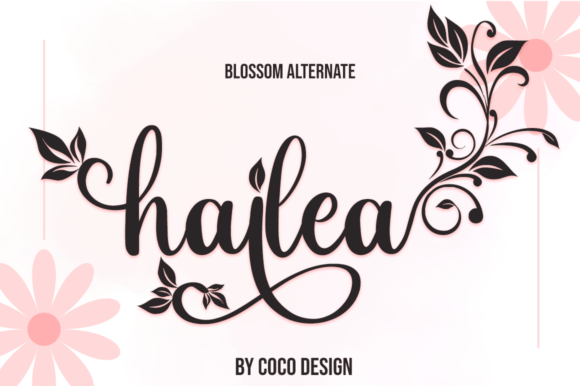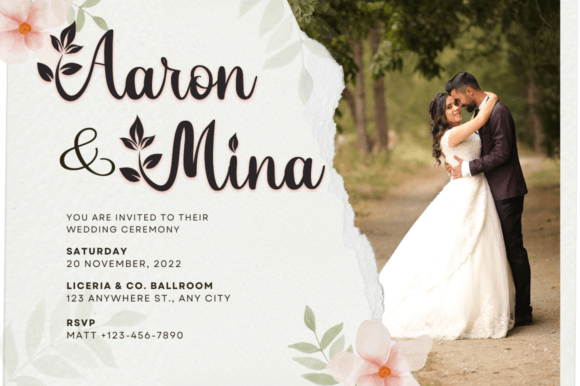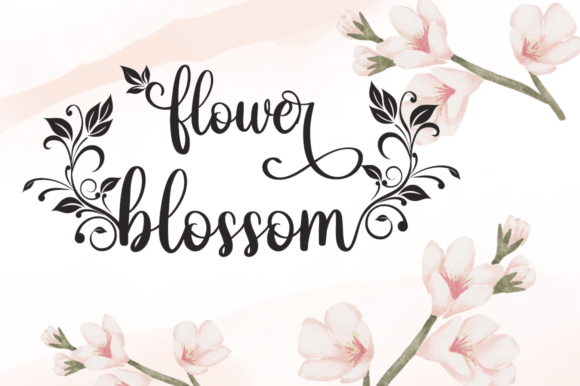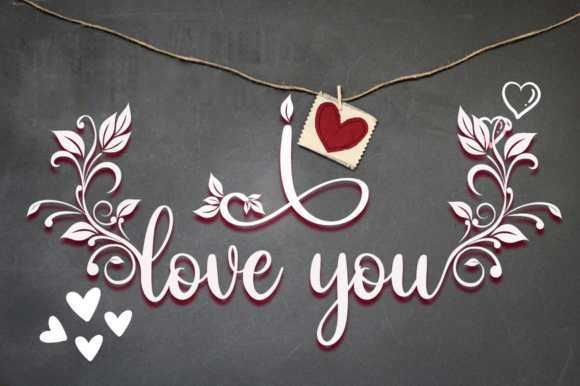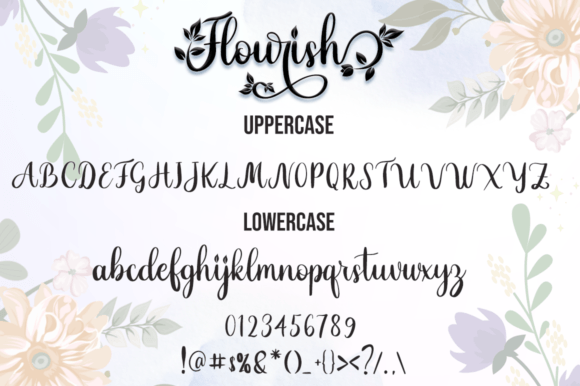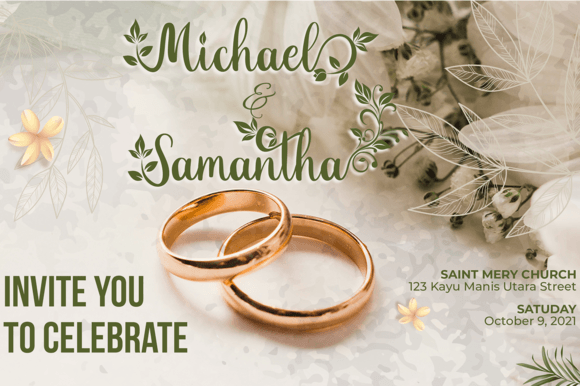
Introducing Flourish Font: Elevate Your Creativity with Elegance
Are you a designer, crafter, or DIY enthusiast looking for a font that can add a touch of magic to your creative projects? Look no further than Flourish Font, a beautiful script font designed to bring elegance and sophistication to your work. In this article, we’ll explore the features and benefits of Flourish Font, and how it can help you turn your creative ideas into stunning works of art.
A Font that Combines Elegance and Magic
Flourish Font is a carefully crafted script font that combines the beauty of calligraphy with a touch of whimsy. Its elegant strokes and flowing lines make it perfect for a wide range of creative projects, from Instagram posts and social media graphics to DIY crafts and paper crafting. Whether you’re looking to add a personal touch to your work or create a professional-looking design, Flourish Font is the perfect choice.
One of the standout features of Flourish Font is its PUA (Private Use Area) encoding. This means that you can access all the glyphs and ligatures with ease, giving you complete creative control over your project. With PUA encoding, you can easily insert special characters, swashes, and other flourishes (pun intended!) to add a unique touch to your design.
Flourish Font is a versatile font that can be used by designers and crafters alike. Graphic designers can use it to create stunning social media graphics, while crafters can use it to add a personal touch to their DIY projects. Whether you’re creating invitations, greeting cards, or scrapbook pages, Flourish Font is the perfect choice.
Use Flourish Font for:
- Instagram posts and social media graphics
- DIY crafts and paper crafting
- Scrapbook pages and photo albums
- Calligraphy and hand lettering projects
Why Choose Flourish Font?
So why choose Flourish Font over other script fonts? Here are just a few reasons:
- Elegant and sophisticated design: Flourish Font is carefully crafted to bring a touch of elegance and sophistication to your creative projects.
- PUA encoding for easy access: With PUA encoding, you can easily access all the glyphs and ligatures, giving you complete creative control over your project.
- Versatile and flexible: Flourish Font can be used for a wide range of creative projects, from social media graphics to DIY crafts.